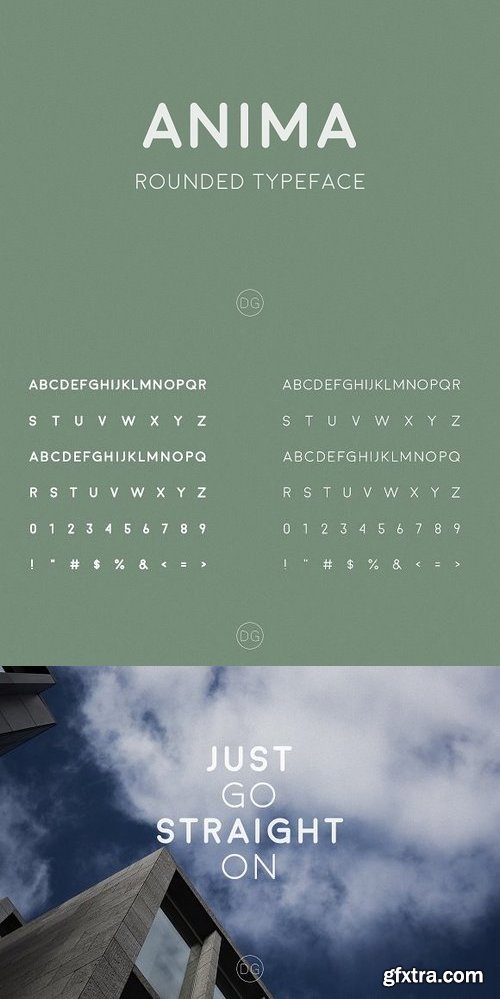
https://creativemarket.com/gdv128/1333106-Anima-TypefaAnima is a modern rounded sans serif typeface. Every symbol was carefully crafted to make your text look superbly awesome. This font will be perfect for quotes, blog headers, big titles, poster, wedding, branding, logo, fashion, apparel, letter, invitation, stationery, etc.ce